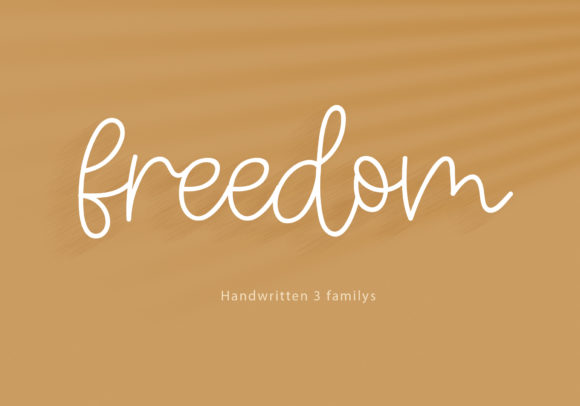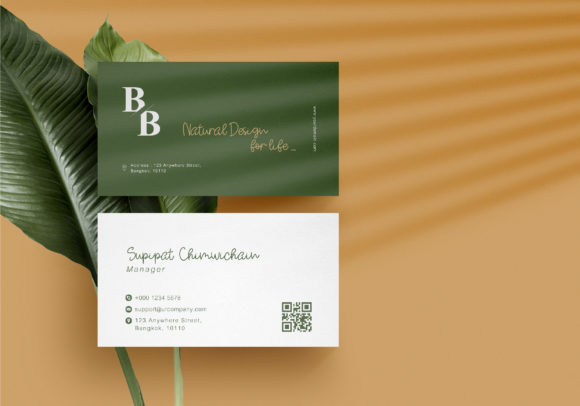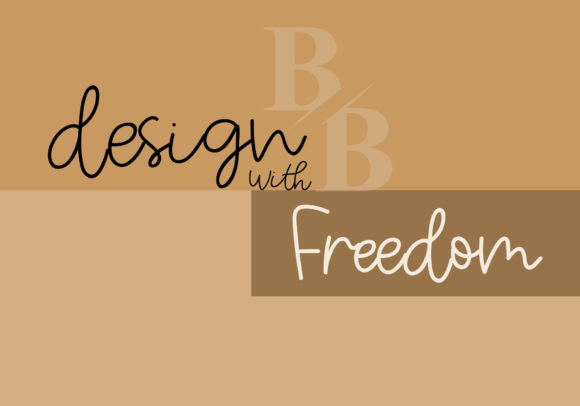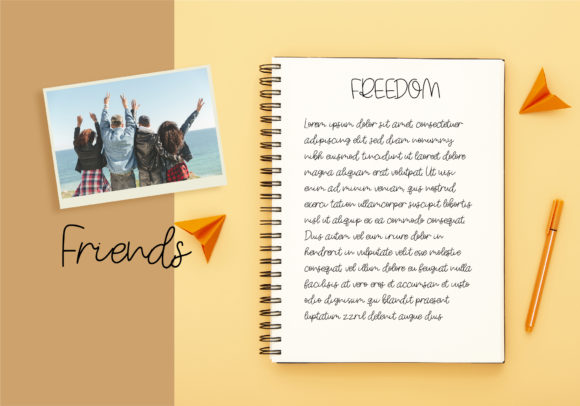
About Freedom Font
Freedom, a font brimming with sweetness and friendliness, is poised to infuse your designs with a natural and unique charm. Its versatility knows no bounds, making it the perfect companion for a diverse range of creative projects, limited only by the expanse of your imagination.
The essence of Freedom lies in its genuine and approachable style. Each character is crafted with a touch of warmth and personality, as if they were penned with care by a dear friend. This inherent friendliness breathes life into your designs, creating an instant connection with your audience.
One of Freedom’s most captivating features is its ability to seamlessly blend into various design contexts, adapting effortlessly to your creative vision. Whether you’re crafting wedding invitations that radiate a sense of joy, conjuring up captivating branding that resonates with authenticity, or devising eye-catching social media posts that capture attention, Freedom becomes an integral part of your design narrative.
The font’s natural flair adds an organic and soothing element to your creations. Its unique style strikes a balance between being expressive and retaining legibility, ensuring that your message shines through clearly. This balance is key, enabling Freedom to excel in both print and digital media, enhancing the visual experience for your audience across different platforms.
Freedom’s adaptability extends beyond its aesthetics; it adapts to your ideas and concepts, adding its own touch of charm without overpowering your overall design vision. Its open and airy forms lend themselves well to collaborations with other design elements, creating a harmonious composition that is both visually pleasing and engaging.
With Freedom in your design toolkit, you’ll discover a newfound sense of creative freedom. Its versatile and friendly nature encourages you to experiment and explore new horizons, sparking innovative ideas and pushing the boundaries of your design projects. Whether you’re designing for personal expression or professional endeavors, Freedom empowers you to bring your imagination to life.
In summary, Freedom is more than just a font—it’s a gateway to limitless creativity. Its sweet and friendly demeanor, coupled with its innate versatility, makes it an ideal choice for a wide range of design ventures. As you unleash your creativity, you’ll find that Freedom becomes a trusted companion, enhancing your designs and bringing them to life in ways that resonate deeply with your audience.